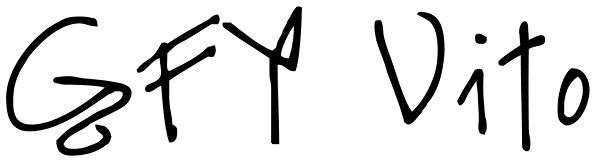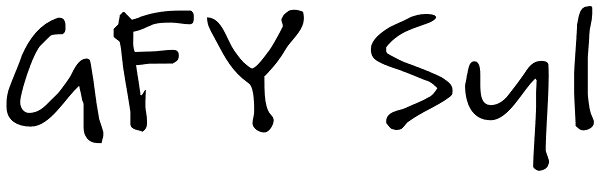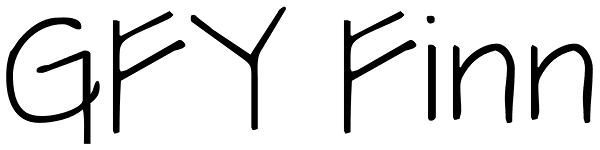
GFY Handwriting Fontpak #2
Explore a diverse range of 23 different handwriting styles with the new Go Font Yourself! Volume 2 Fontpak. This is a collection of 23 new, genuine handwriting fonts in OpenType format for Mac or PC. Fancy cursive or extrabold marker, stylish script...